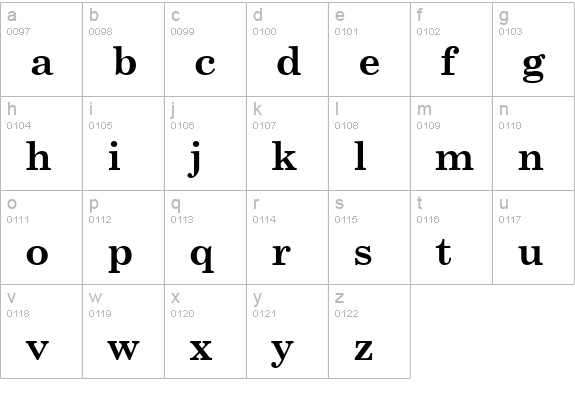
CenturySchool Bold is a strong, high-contrast variant in the CenturySchool typeface family \xE2\x80\x94 well suited to headlines, attention-grabbing titles, and strong calls-to-action.
CenturySchool Bold font is a timeless and versatile typeface that exudes elegance and sophistication. Its bold and commanding presence makes it perfect for headlines, titles, and other prominent text elements. The clean lines and classic design of CenturySchool Bold make it a popular choice for a wide range of design projects, from print materials to digital content. What sets CenturySchool Bold font apart is not just its aesthetic appeal, but also the fact that it is available for free. Yes, you read that right - this premium font can be downloaded at no cost from FontsMarket.com. Whether you're a seasoned designer looking to add a new font to your collection or a beginner exploring typography for the first time, CenturySchool Bold is a must-have addition to your toolkit. With its bold strokes and timeless charm, CenturySchool Bold font is sure to make a statement in your designs. Download it for free today and elevate your projects with this sophisticated and eye-catching typeface.